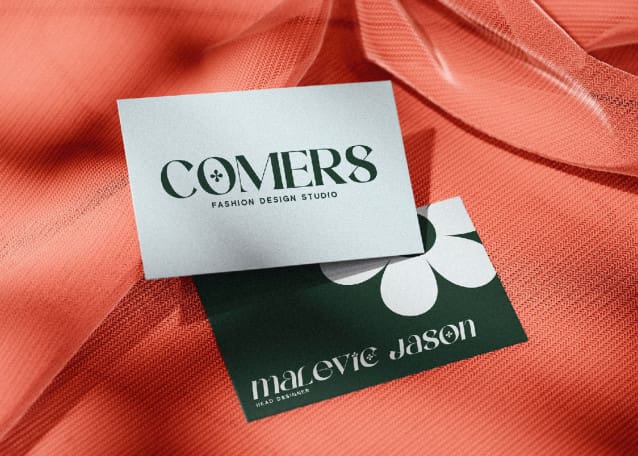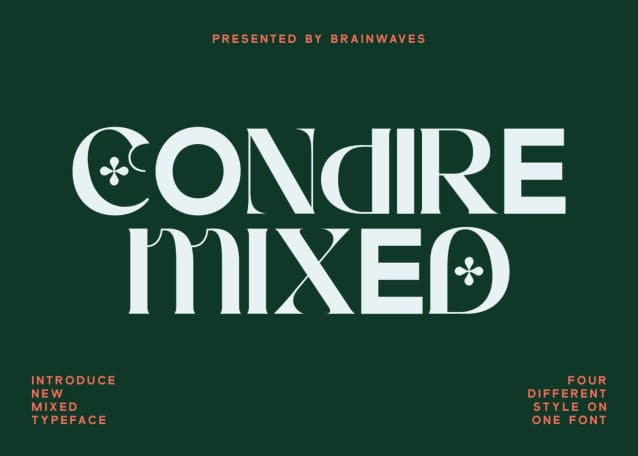
Condire Mixed Font
Condire Mixed Font is a special mixed font, combining the sleekness of sans serif with the refined charm of a modern serif. This unique blend is further elevated by decorative serif alternates featuring subtle ornamental details, making this font truly elegant, unique, and luxurious.